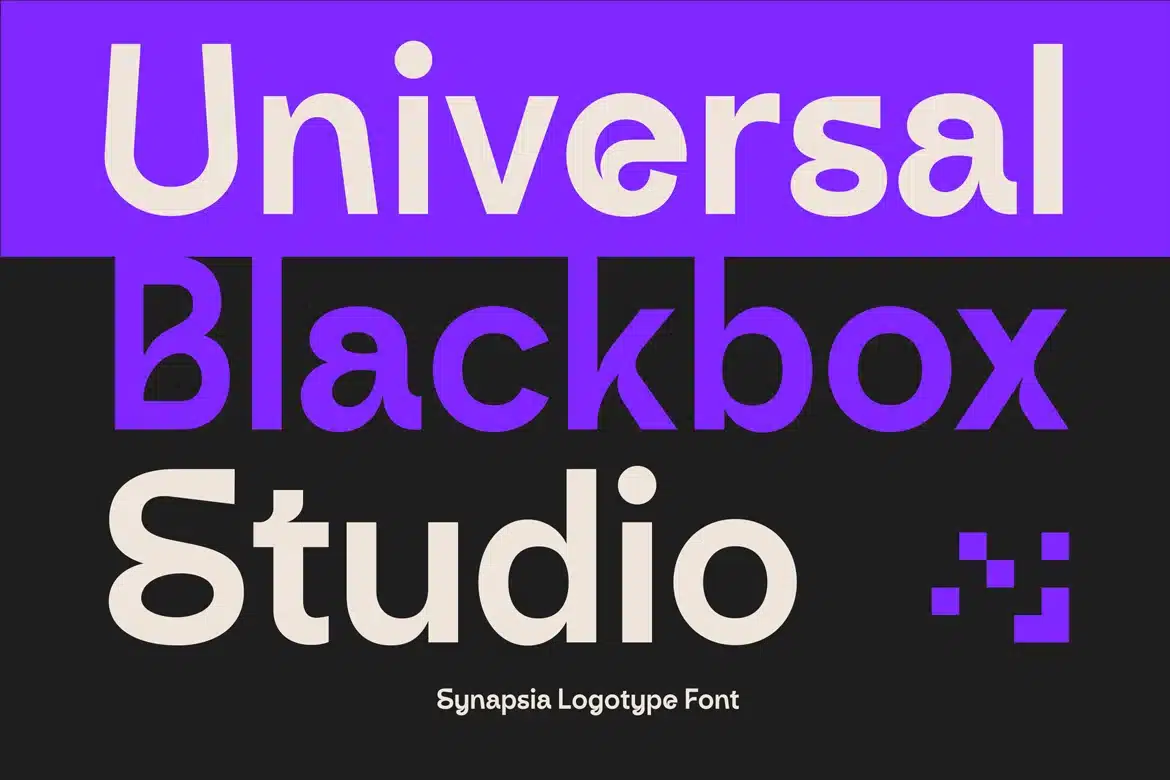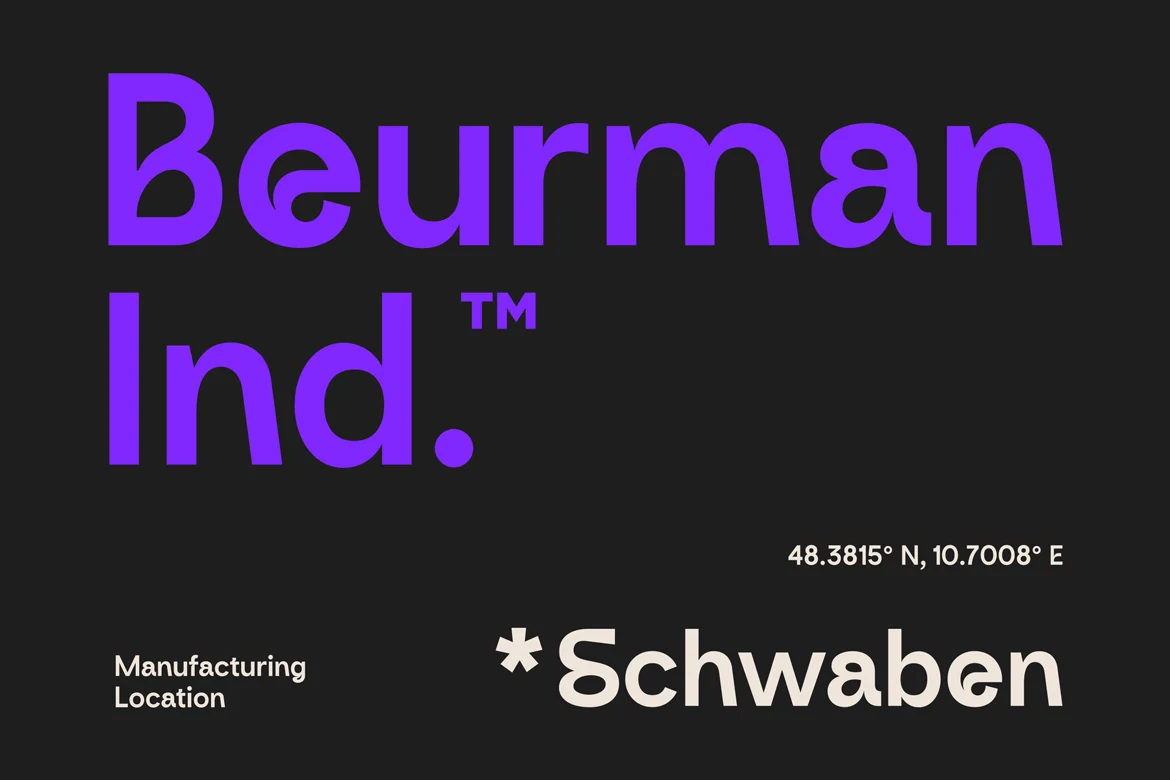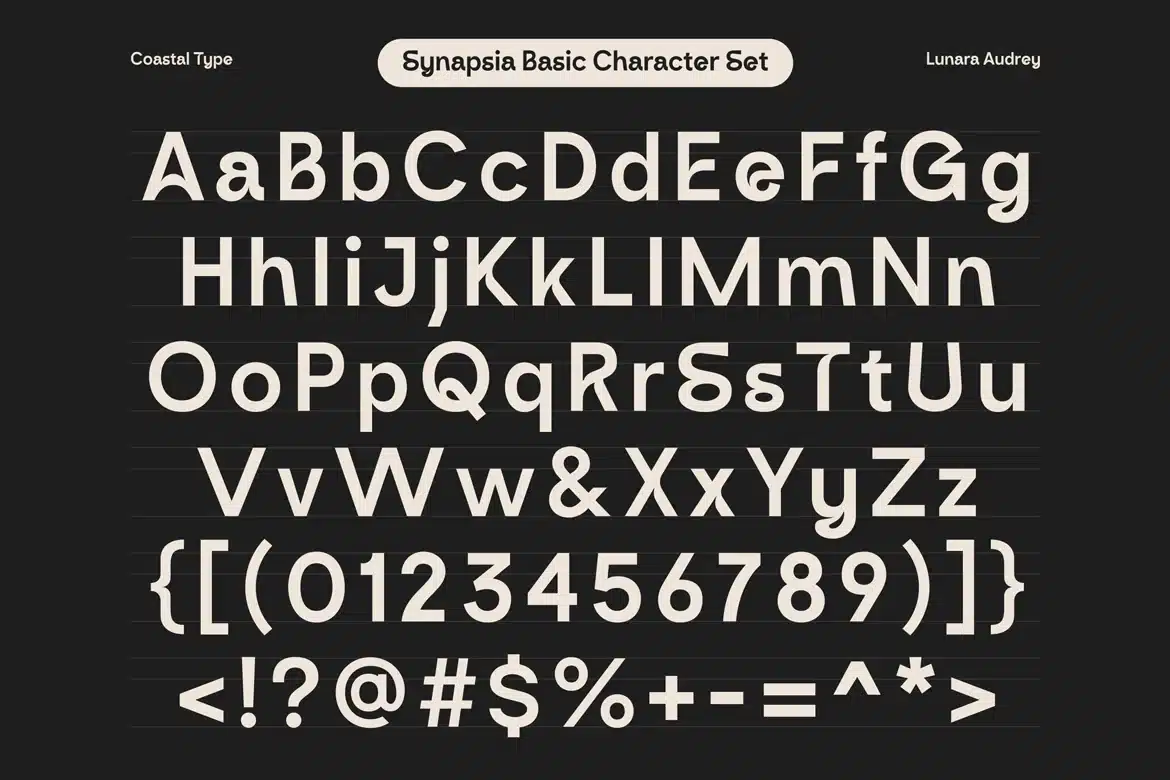
Synapsia Font
Synapsia bridges the organic and the geometric, fusing the graceful radial lines of nouveau style with the awe-inspiring logarithmic spirals of nature and the cosmos. This foundation, infused with the expressive dynamism of early grotesques, creates a typeface that's both structured and untamed. Synapsia exudes energy and individuality, breaking free from strict geometric constraints to bring a sense of movement and vitality to your designs.